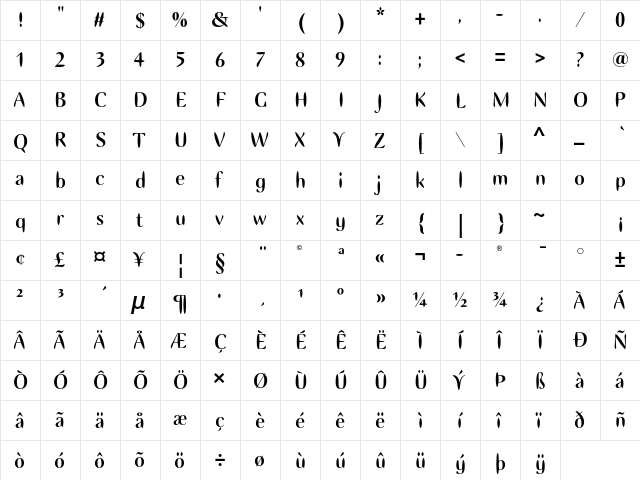
Ellipse ITC Std Bold
| Designer | Jean-Renaud Cuaz |
Design Context for Ellipse ITC Std Typeface
Ellipse ITC Std is a composed and adaptable typeface that performs quietly and consistently across a wide range of design contexts. Its bold stroke weight gives it real presence on the page.